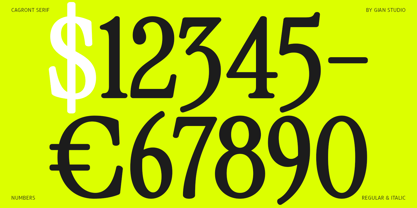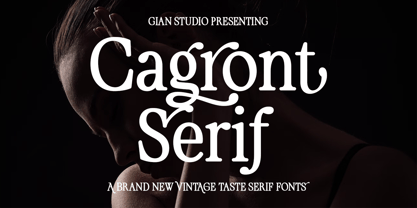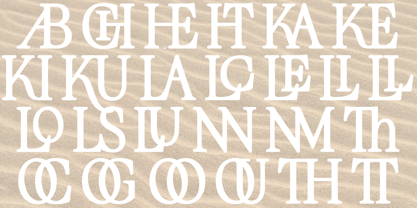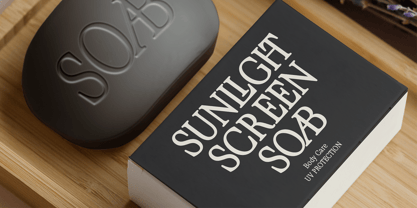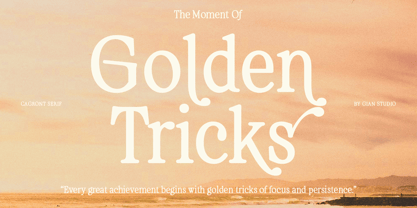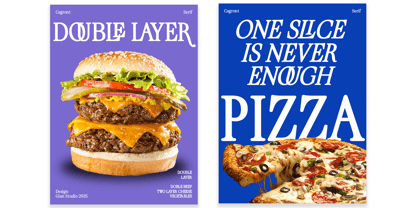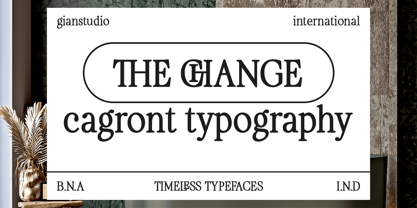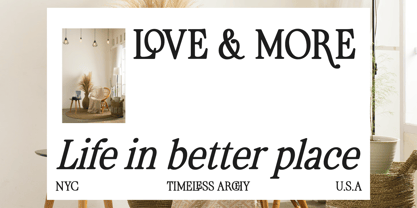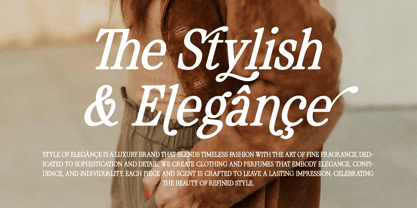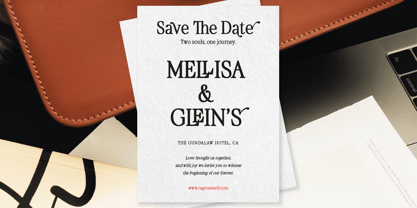
Cagront Serif
The Cagront Serif Font Family was designed by Yusliana M Isa and published by Gian Studio. Cagront Serif contains 2 styles and family package options. More about this family
Present to you for New Modern Cagront Serif!
Cagront Serif is a sophisticated ligature and alternate Serif from us. This typeface has been made carefully to make sure its premium quality and luxury feel. The ligatures and alternates makes this typeface unique and stands out rather than the regular Serif font.
This font is very suitable for logo, headline, tittle, and the other various formal forms such as invitations, labels, logos, magazines, books, greeting / wedding cards, packaging, fashion, make up, stationery, novels, labels or any type of advertising purpose
Ligatures & Alternates
Letters, numbers, symbols, and punctuation
Multilingual Support